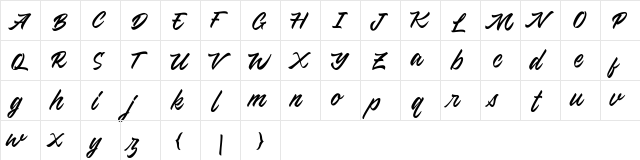
Monica Script DEMO Regular
Monica Script DEMO brings a calligraphic fluidity to the page — its connecting strokes and expressive curves give it an unmistakably human quality.
Font Pairing: Combine Monica Script DEMO with a simple geometric sans for maximum contrast — the tension between flowing curves and clean structure is a classic typographic pairing.
Pro Tip: Use Monica Script DEMO for short runs of text — names, titles, or taglines. Extended body copy in script faces tires the eye quickly.